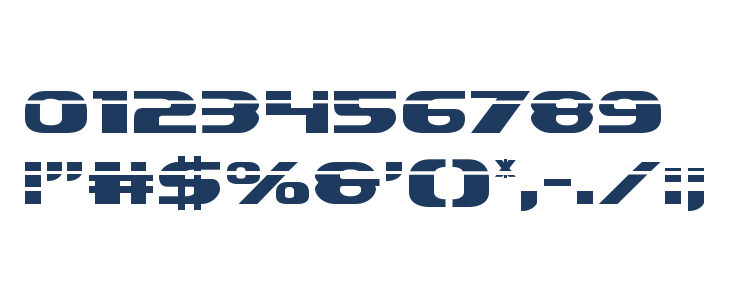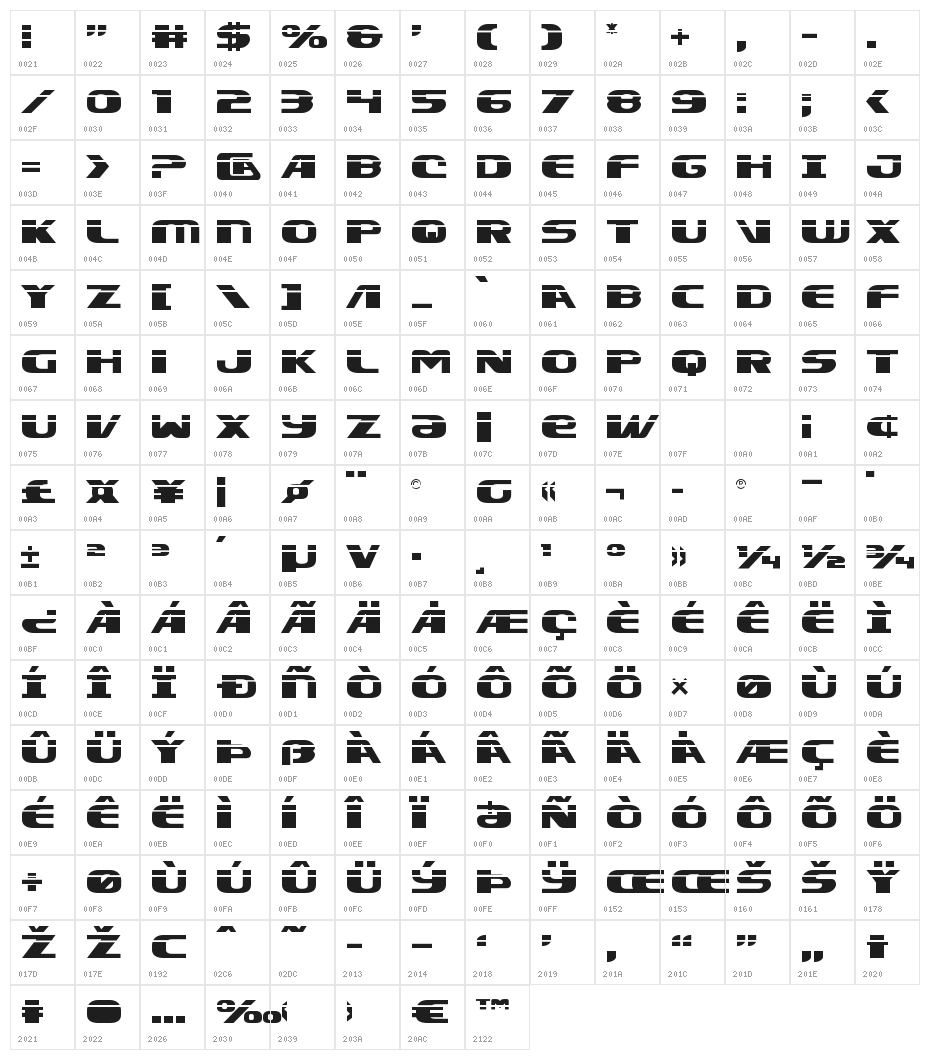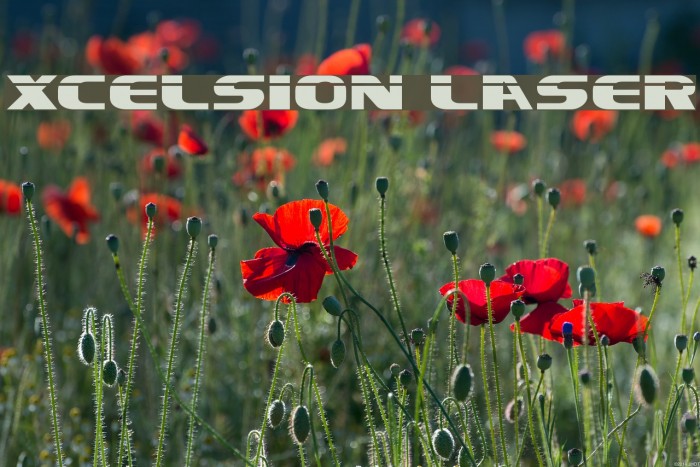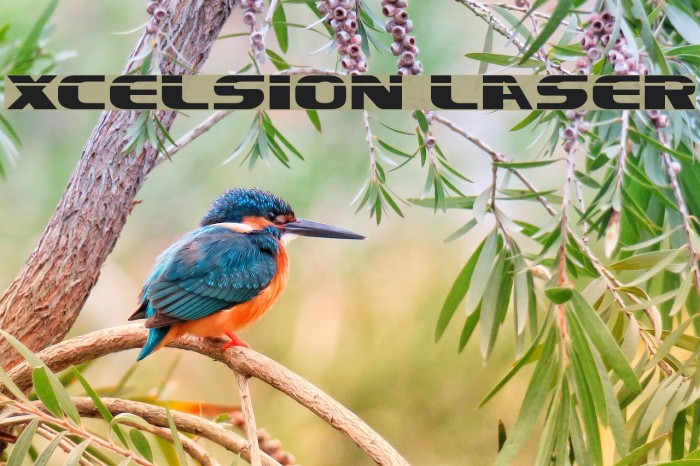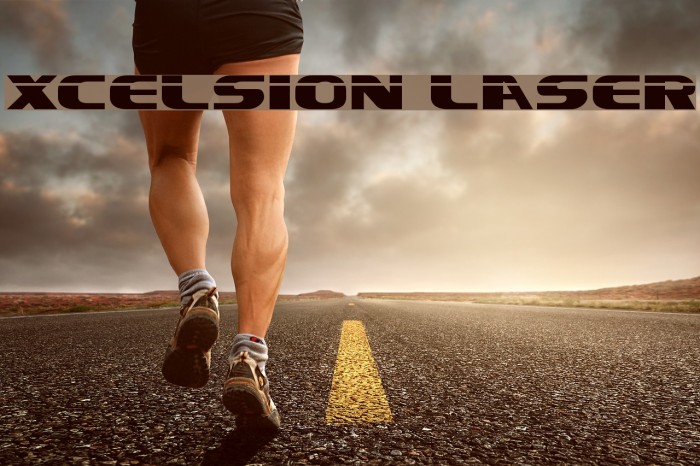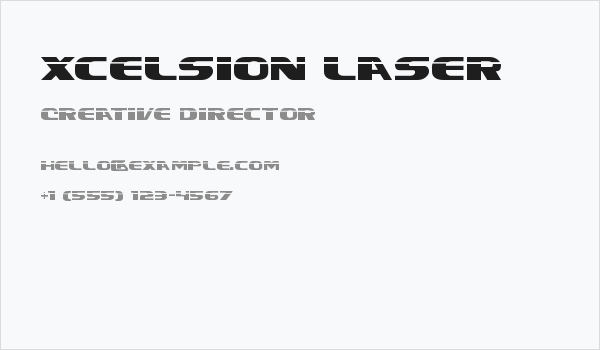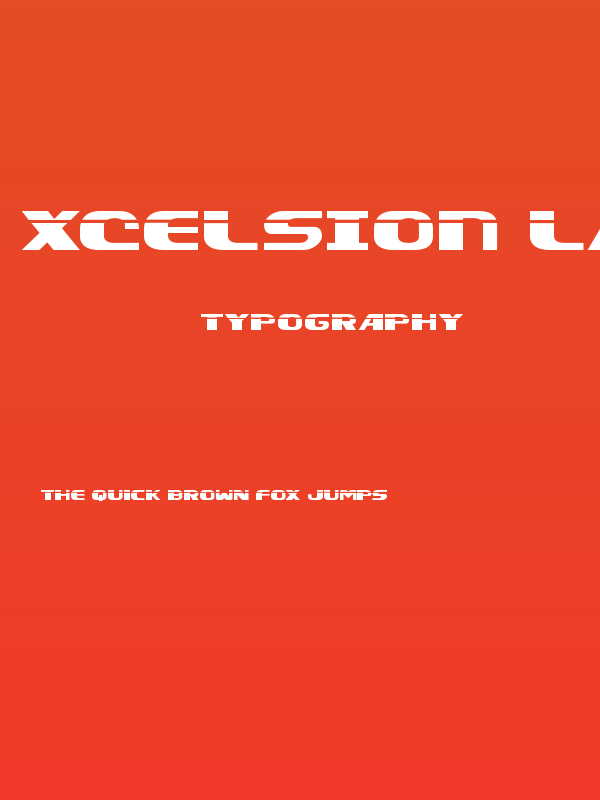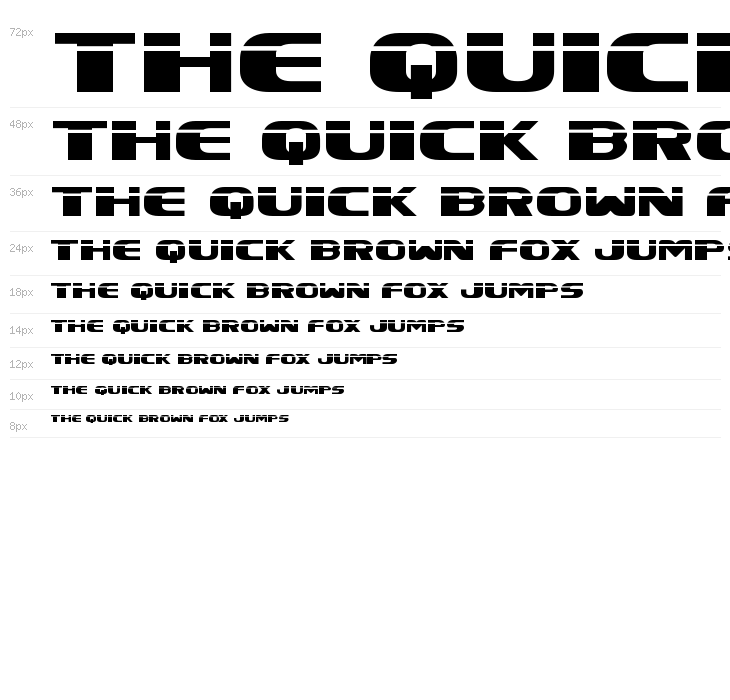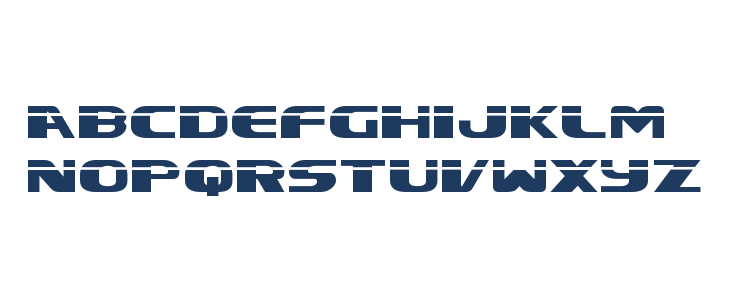
Xcelsion Laser Font
Xcelsion Laser Description
This font features a bold, futuristic design with a strong geometric influence. The characters are constructed with sharp angles and clean lines, giving it a modern and high-tech appearance. The uppercase letters are particularly striking, with unique cutouts and shapes that add to its distinctive style. The numerals and special characters maintain the same bold and angular aesthetic, ensuring consistency across all glyphs. This font is ideal for projects that require a contemporary and impactful look.